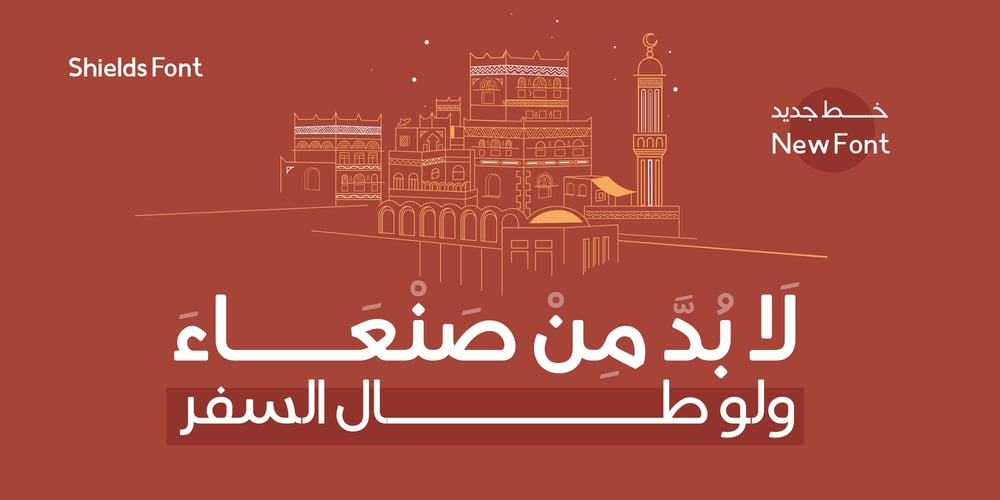
Shields BKL
Shields BKL font
Shields BKL Font Family was designed by Roland Hüse and published by Bakeel Studio. Shields BKL contains 10 styles and family package options. Shields is a unique and versatile typeface that can be used for a variety of applications, from branding to editorial design. Its bold and modern look makes it a great choice for titles and headlines. Its letterforms have been carefully crafted to ensure a consistent look across all sizes, while its open counters provide a unique, yet subtle touch. With its refined details and balanced shapes, Shields is the perfect typeface to create an eye-catching presence.